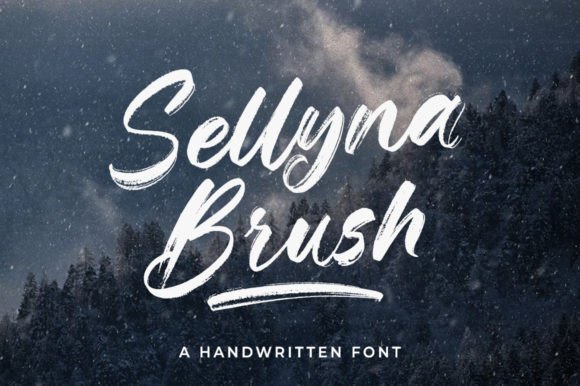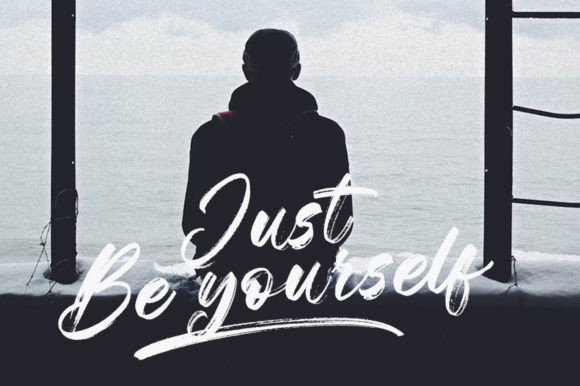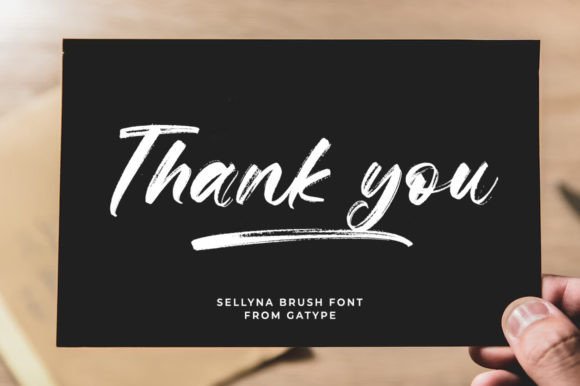
Sellyna Brush Font
Sellyna Brush is a handwritten script font, based on free-flowing, friendly, and organic signature-style expressions. Hand-painted with love, this font is perfect for branding projects, logos, product packaging, posters, invitations, greeting cards, news, blogs, and more.